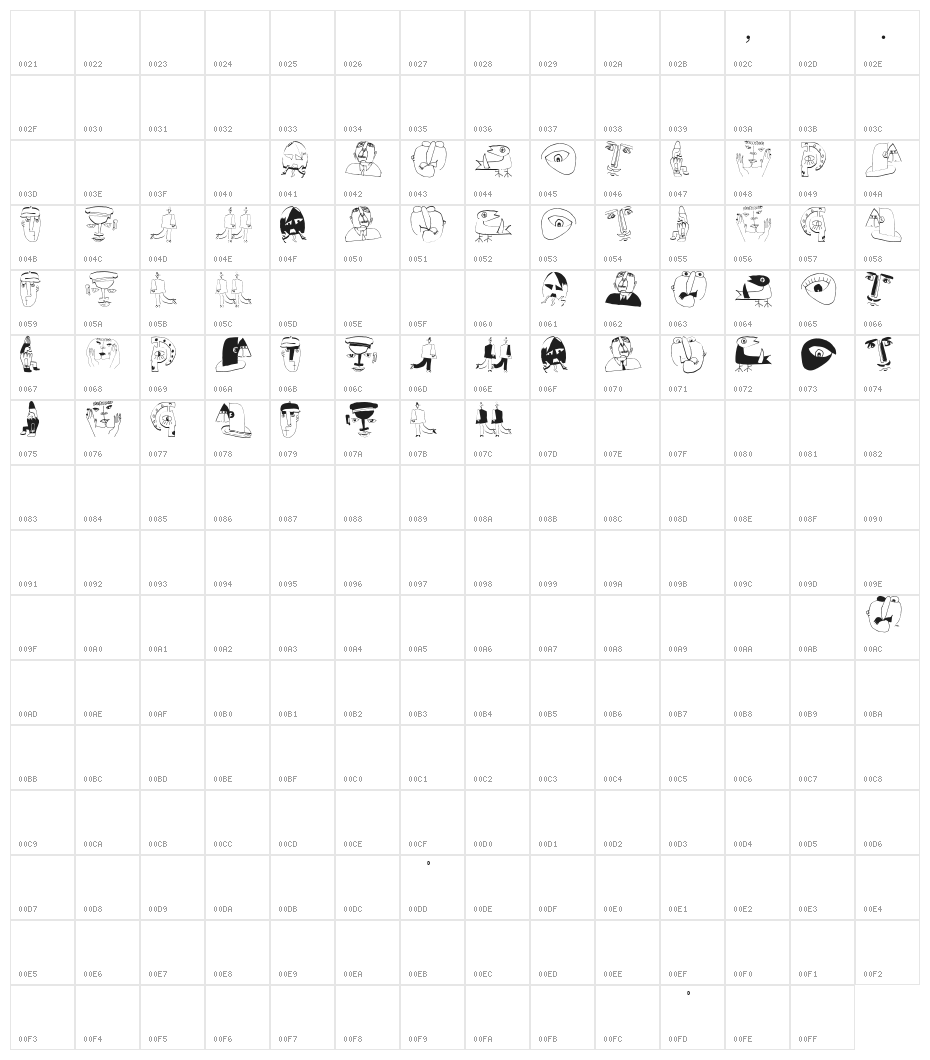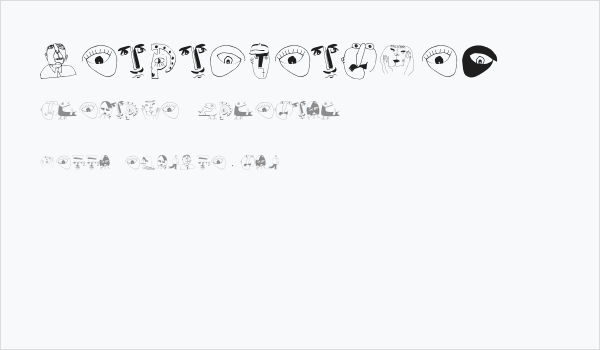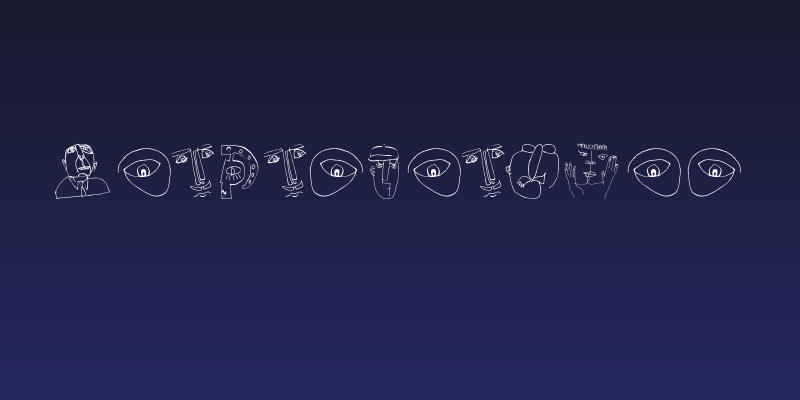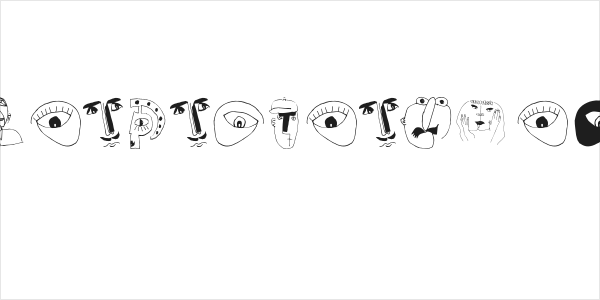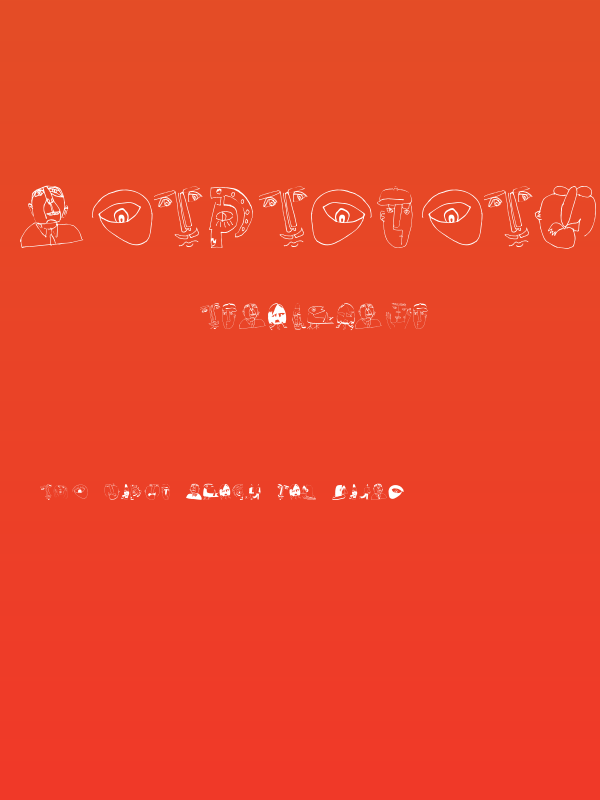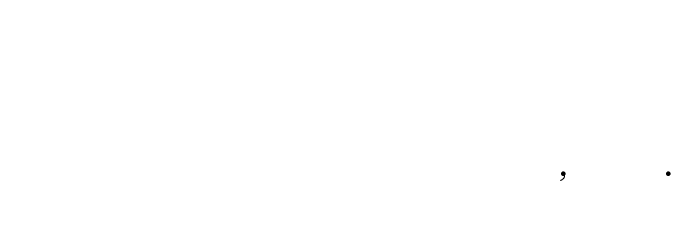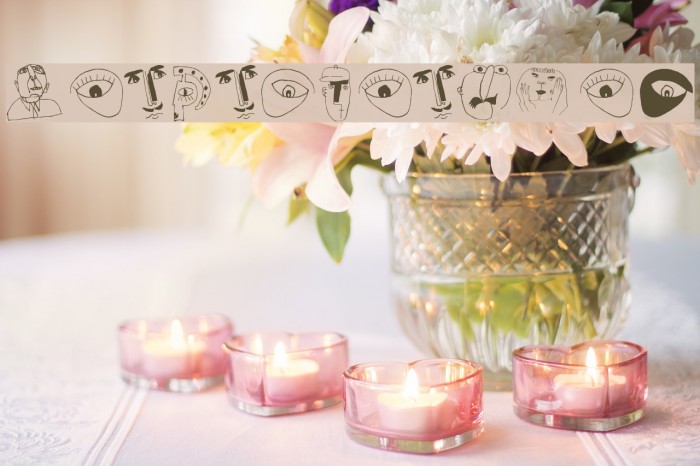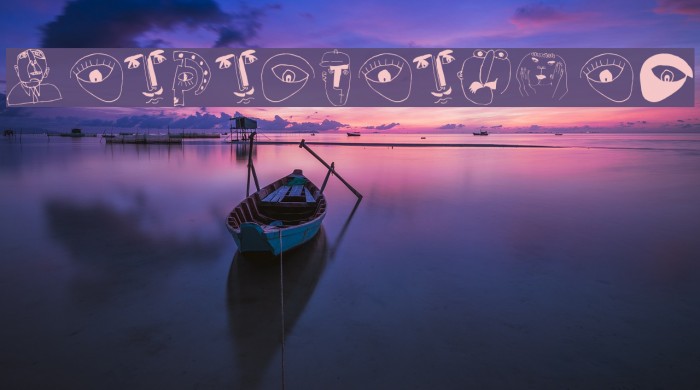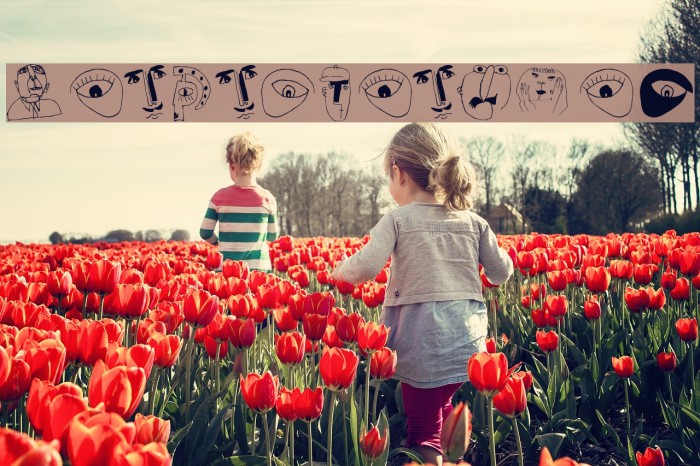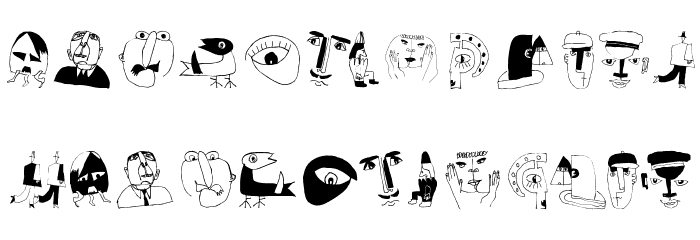
PetitSketches Font
PetitSketches Description
This font is a collection of whimsical and artistic sketches, each character resembling a unique, abstract face or figure. The design is highly decorative, with each letter and symbol crafted to look like a playful doodle. The characters are not uniform in style, featuring a mix of bold and thin lines, adding to the eclectic and creative feel. This font is more of an artistic expression than a traditional typeface, making it suitable for projects that require a touch of humor and creativity. The overall appearance is reminiscent of abstract art, with a focus on individuality and expression.
| Use Case | Logos, Posters, Artistic Designs |
| Proposed Projects | Ideal for creative projects, art exhibitions, playful branding, or any design needing a unique, artistic touch. |